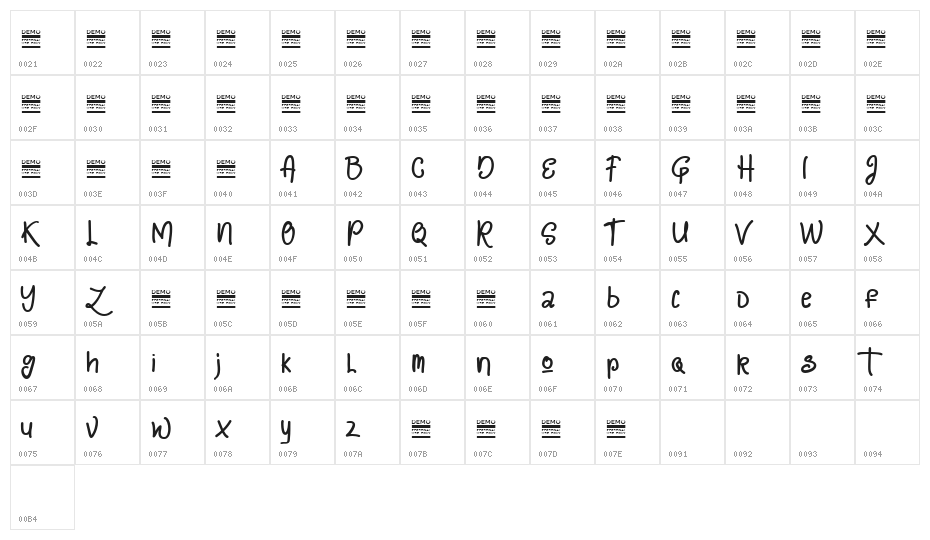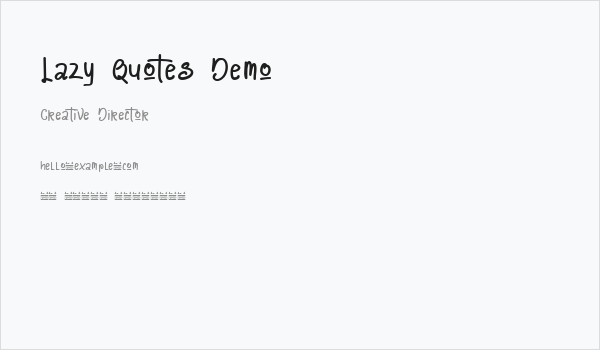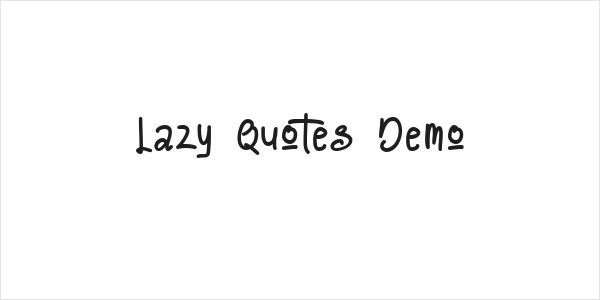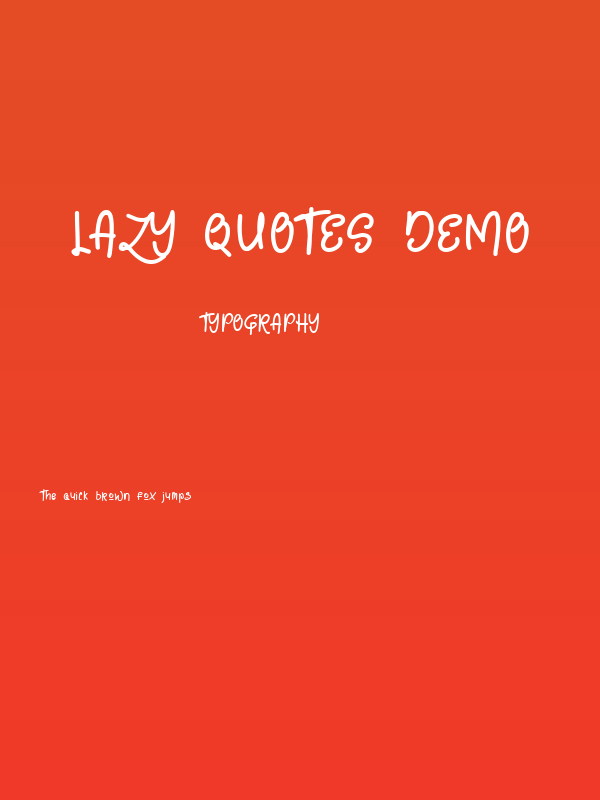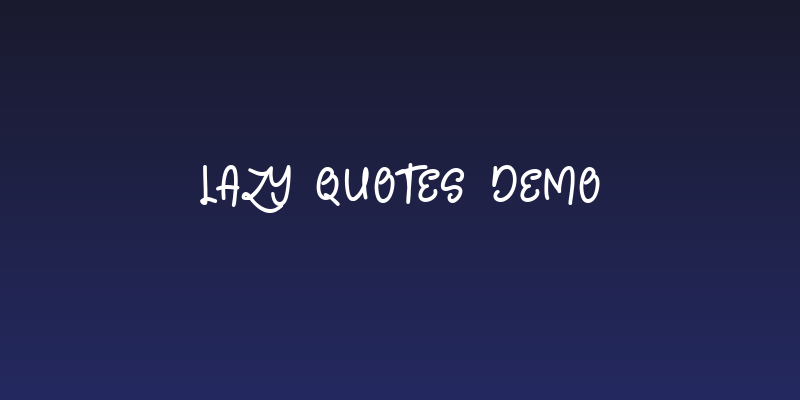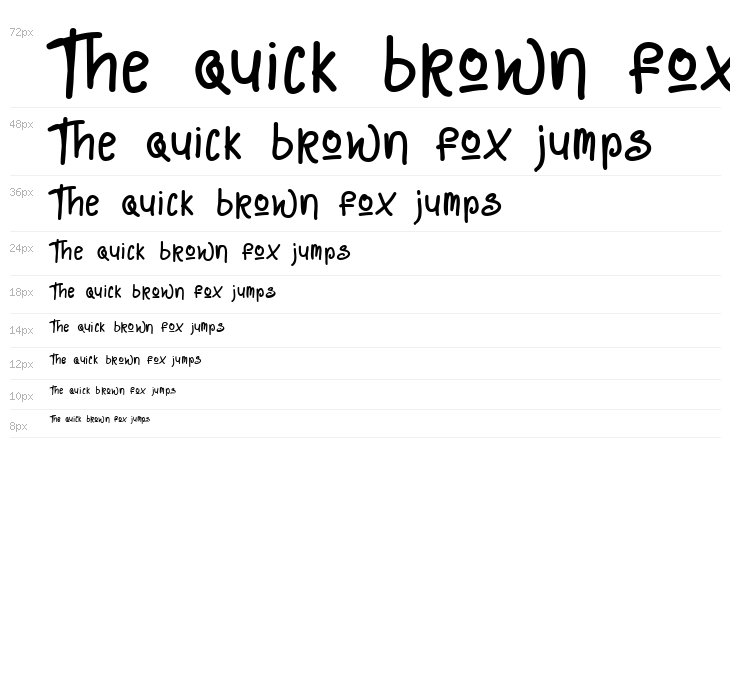
Lazy Quotes Demo Font
Lazy Quotes Demo Description
This playful and whimsical font features a handwritten style with a casual and friendly appearance. The letters are characterized by smooth, flowing curves and a slightly uneven baseline, giving it a natural, organic feel. The uppercase and lowercase letters maintain a consistent style, with rounded edges and a moderate stroke width that ensures readability. The font includes a full set of numerals and a selection of special characters, making it versatile for various design needs. Its informal and approachable look makes it suitable for projects that require a personal touch.
| Proposed Projects | Ideal for greeting cards, invitations, children's books, and personal branding. |